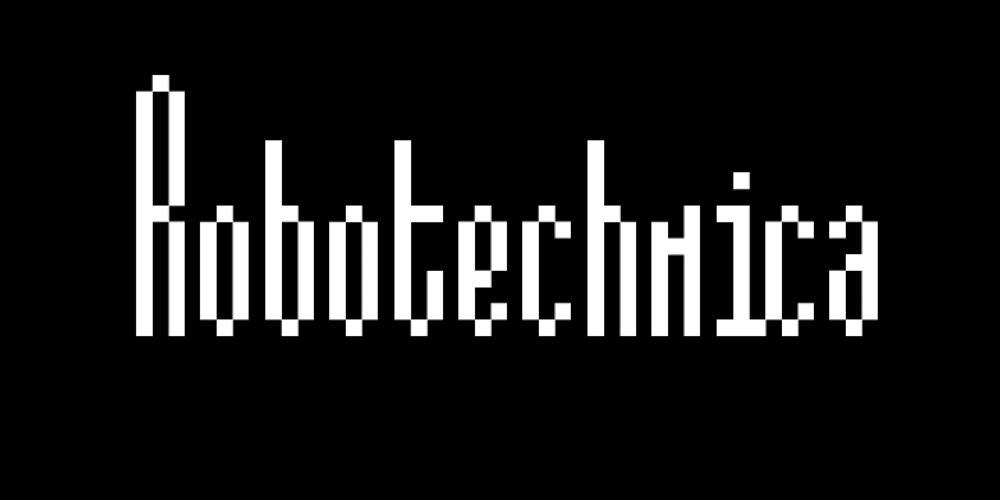
Alt Robotechnica
Alt Robotechnica font
Alt Robotechnica Font Family was designed by Andreas Leonidou and published by ALT. Alt Robotechnica contains 1 styles and family package options. Robotechnica is my first ever pixel font, I was experimenting with pixel fonts for a while and I’m happy with the result.